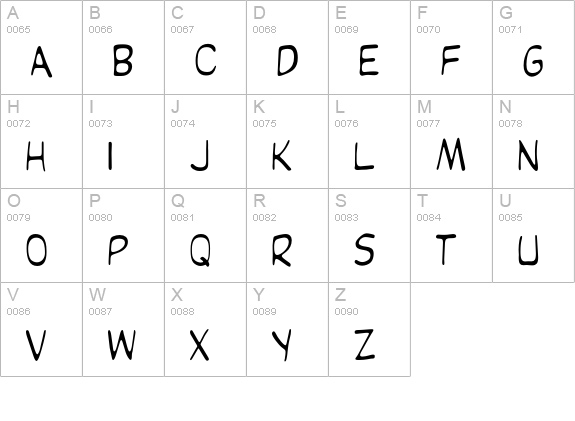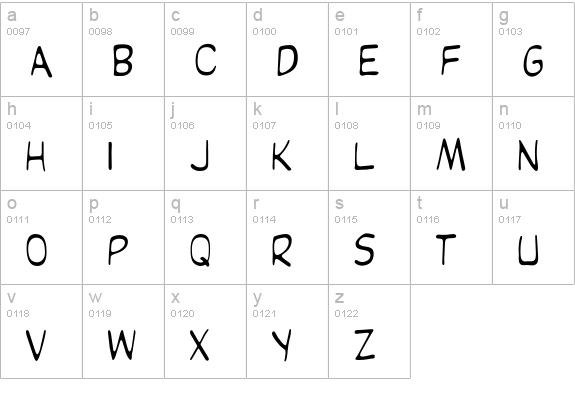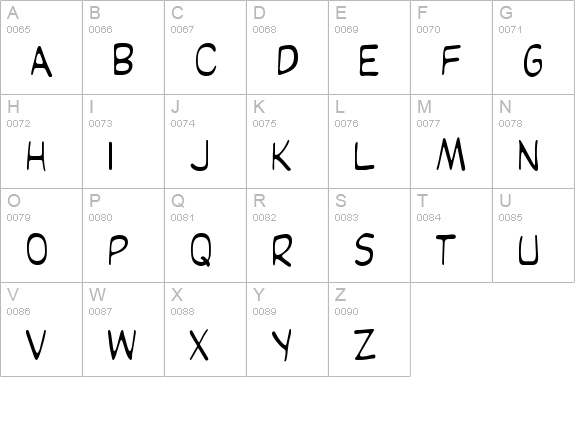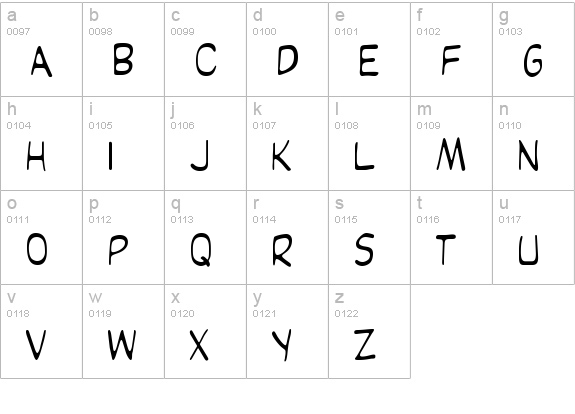
OPTIKartoon Font Details
Introducing OPTIKartoon font, a whimsical and playful typeface that adds a touch of fun to any design project. This delightful font features quirky characters with unique shapes and curves, making it perfect for creating eye-catching headlines, logos, and more. Best of all, OPTIKartoon font is completely free to download at FontsMarket.com. Whether you're working on a children's book, a party invitation, or a branding project, this font is sure to bring a smile to your audience's faces. Let your creativity shine with OPTIKartoon font and make your designs stand out from the crowd!